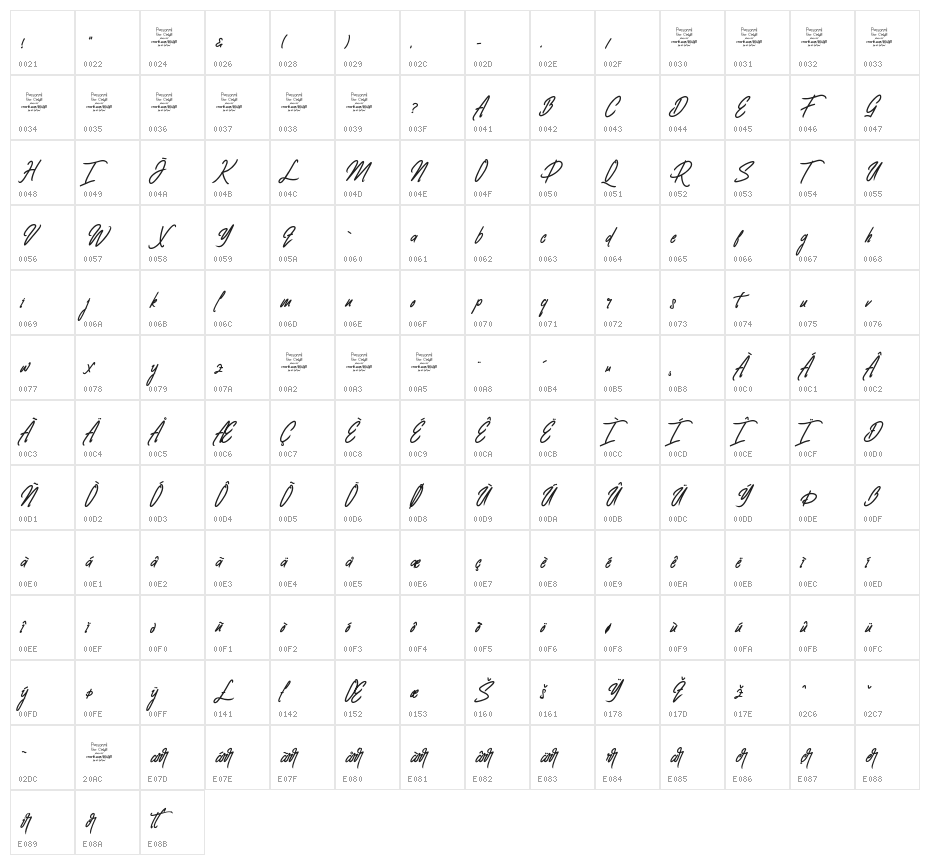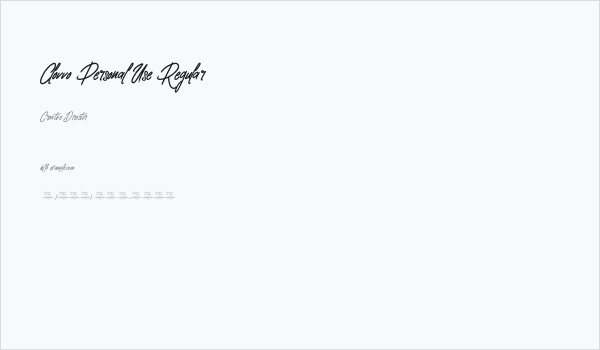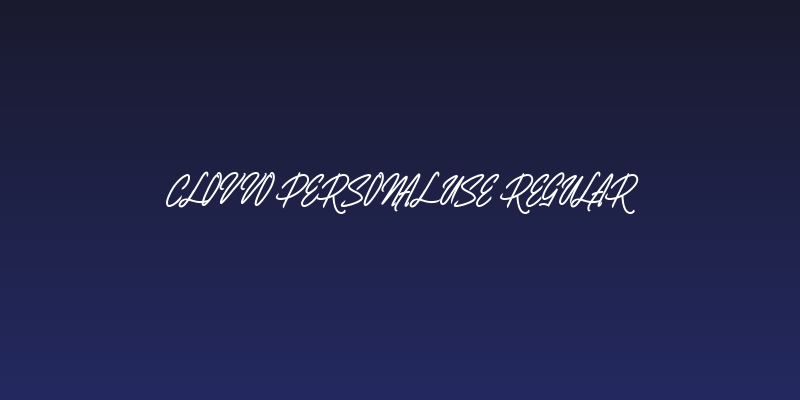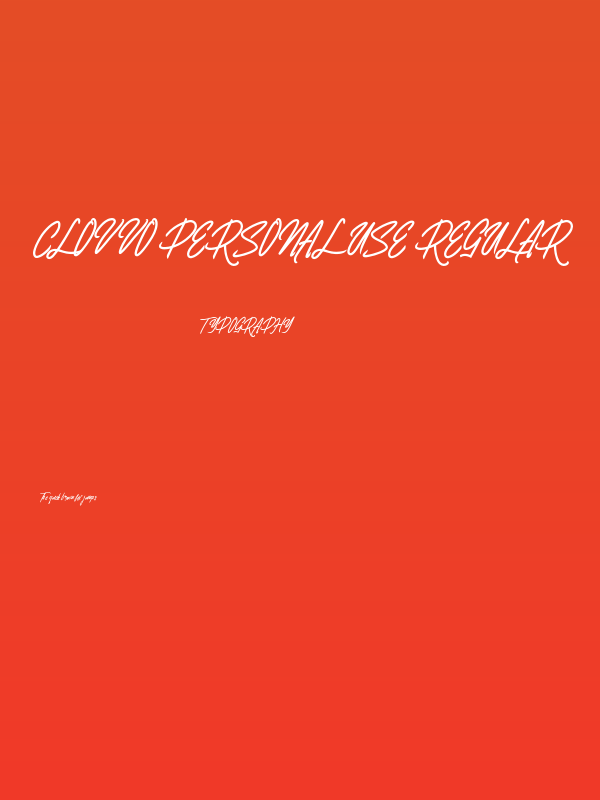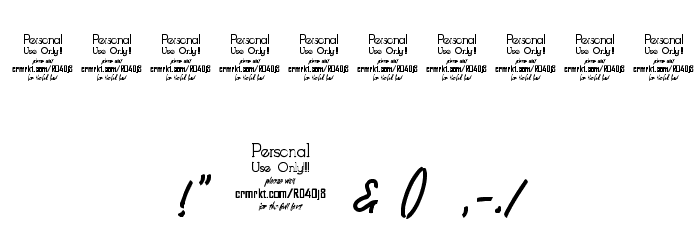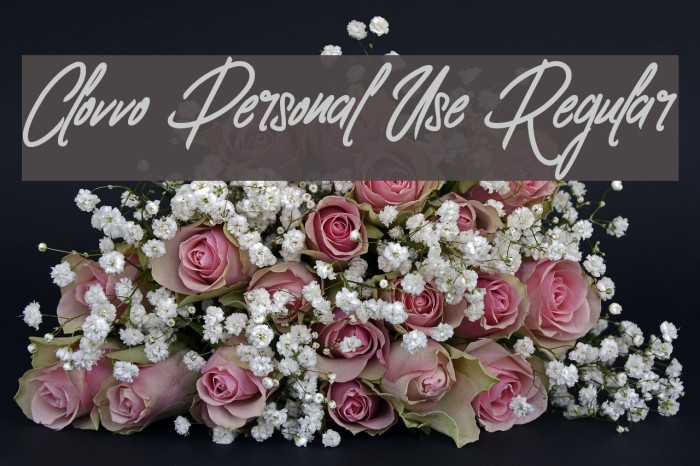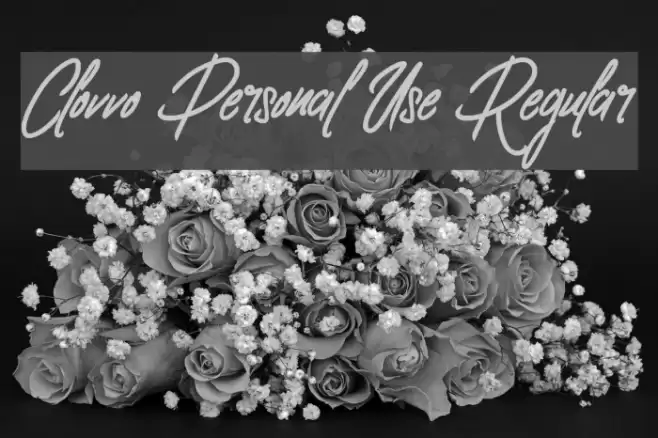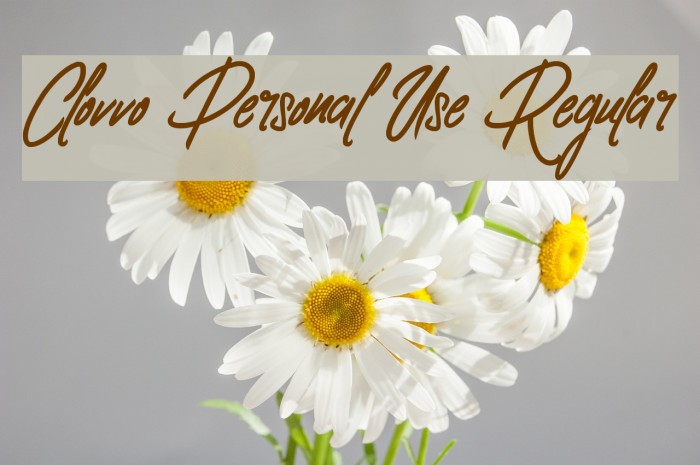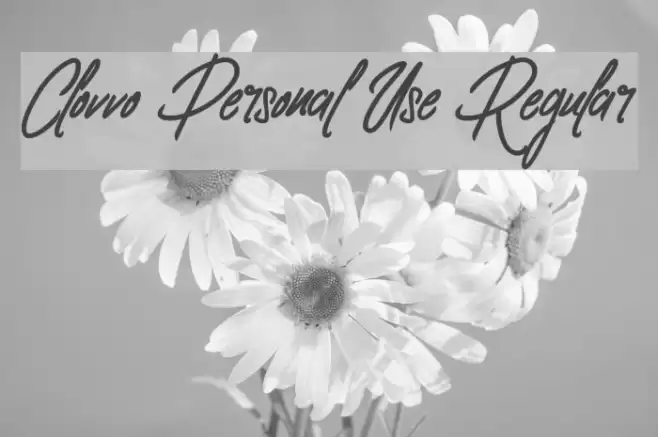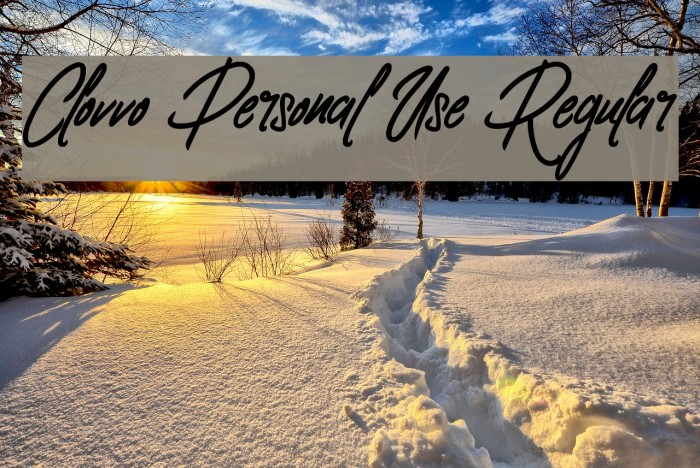
Clovvo Personal Use Regular Font
This font features a dynamic and flowing script style, characterized by its elegant and cursive letterforms. The uppercase letters are bold and sweeping, with a sense of movement and flair that adds a touch of sophistication. The lowercase letters maintain a consistent flow, complementing the uppercase with their smooth and connected strokes. The numbers and special characters are designed to match the overall script style, ensuring a cohesive look across all characters. This font is ideal for projects that require a personal and artistic touch, such as invitations, greeting cards, and branding materials.
| Proposed Projects | Ideal for invitations, greeting cards, branding, and artistic projects. |